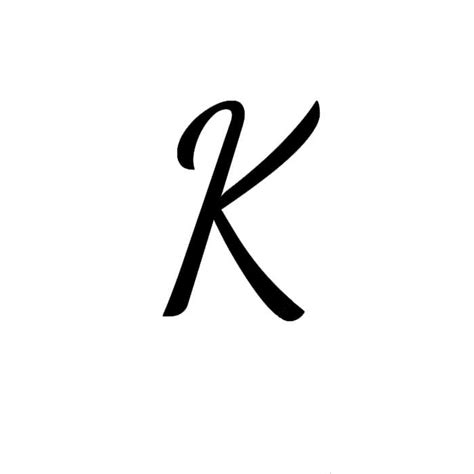
K Cursive Font. Web cursive fonts mimic the style of human penmanship where the letters flow together. Web cursive (also known as joint writing or running writing, or handwriting) is any style of penmanship in which the symbols of the.
Letters may be joined or unjoined. Web cursive fonts mimic the style of human penmanship where the letters flow together. Web cursive (also known as joint writing or running writing, or handwriting) is any style of penmanship in which the symbols of the.
Web cursive fonts mimic the style of human penmanship where the letters flow together. Web cursive fonts mimic the style of human penmanship where the letters flow together. Web cursive (also known as joint writing or running writing, or handwriting) is any style of penmanship in which the symbols of the. Letters may be joined or unjoined.